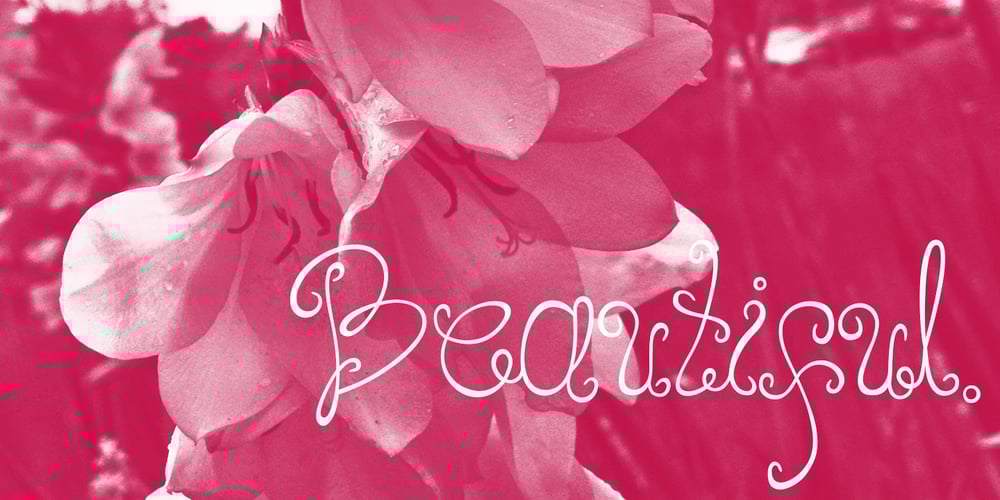
Joy Font Family was designed by published by Yasmina Creates. Joy contains 1 styles and family package options. Joy is sure to spice up your text life! She overflows with style and personality. She loves to be center stage on headlines, flirting with her readers eyes. There are over 100 ligatures, creating words with some letters connecting and others standing on their own. This creates a modern, fresh, handwritten look.